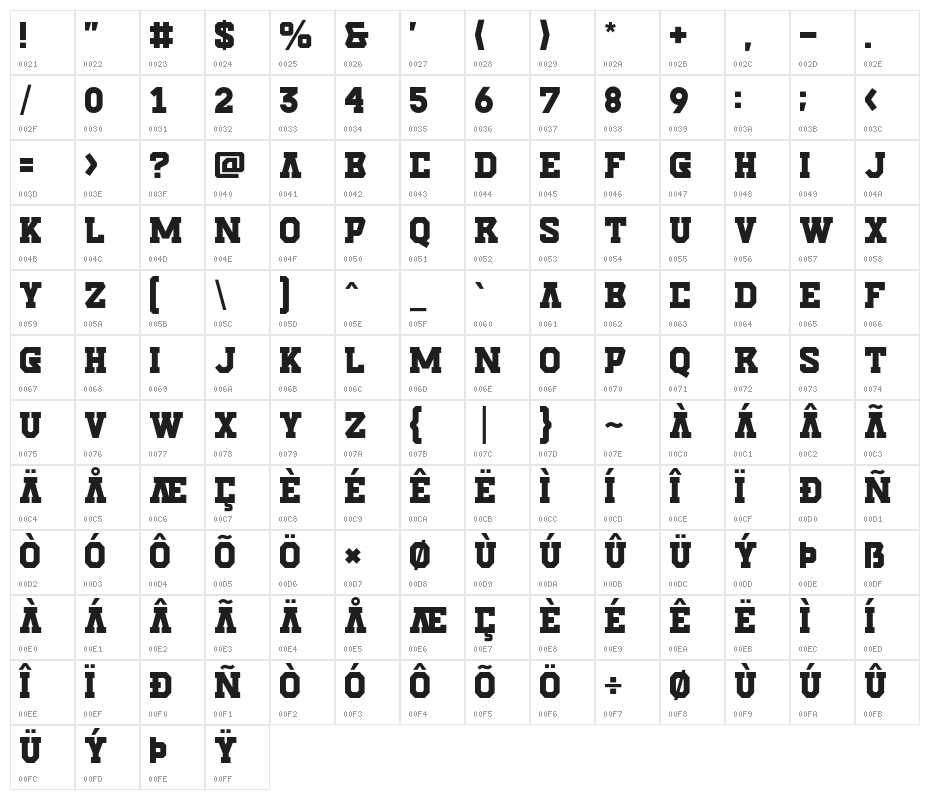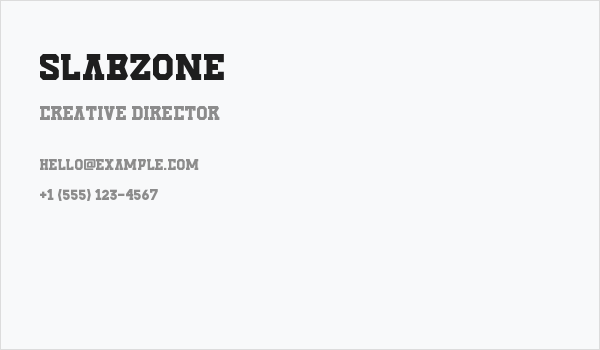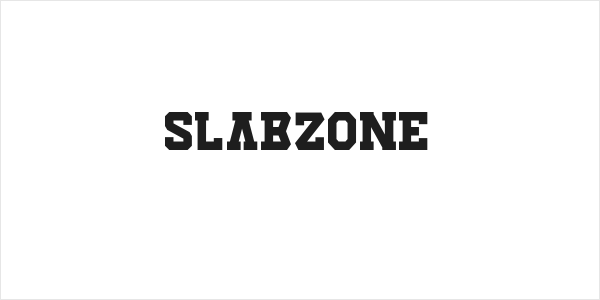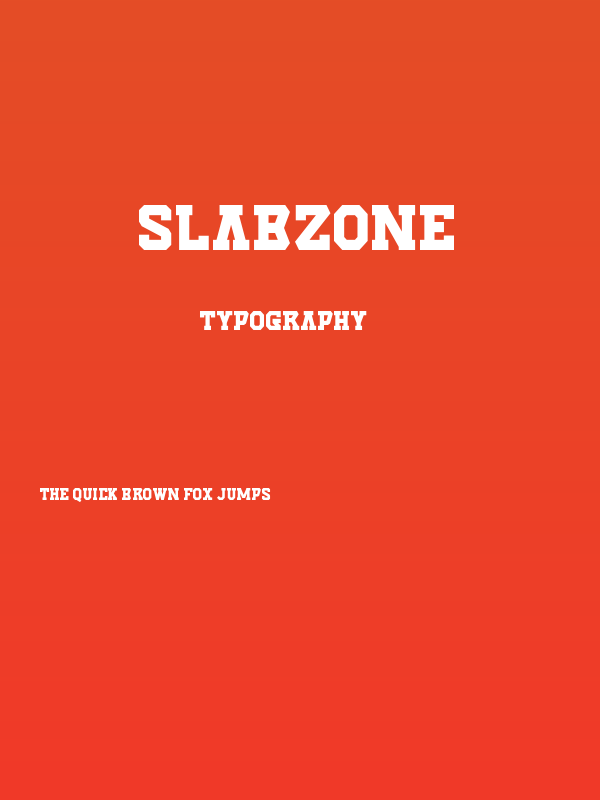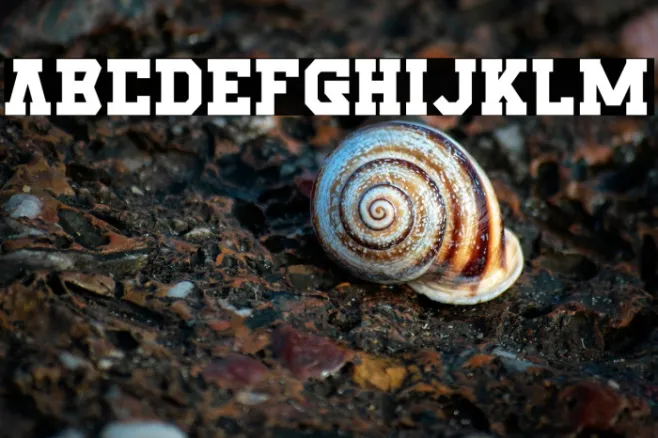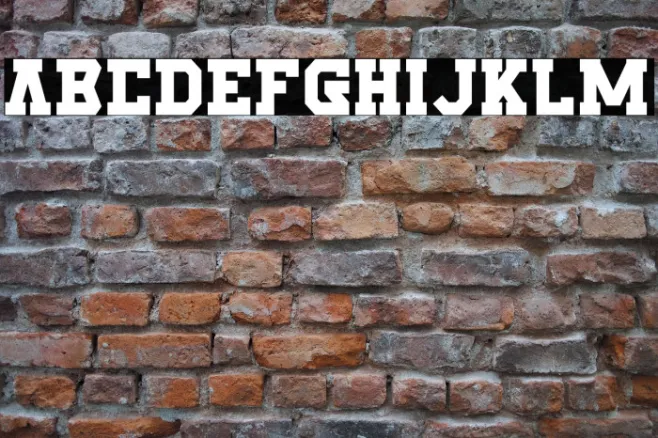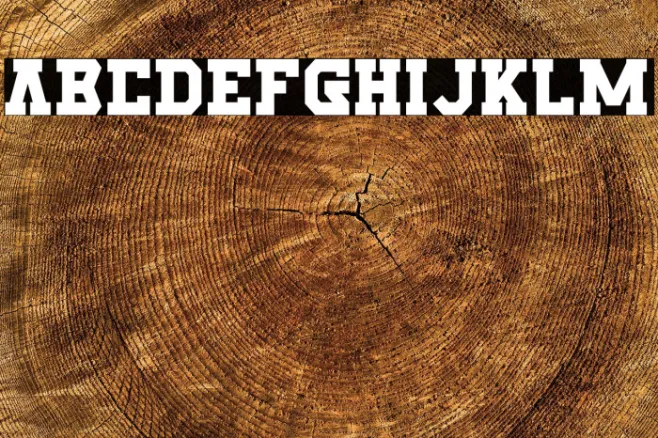
Slabzone Font
Slabzone Description
This font features bold, blocky letters with thick strokes and a strong presence, making it ideal for attention-grabbing designs. The characters have a geometric structure with consistent stroke widths, giving them a robust and sturdy appearance. The uppercase letters are particularly striking, with sharp angles and a uniform height, while the numerals are equally bold and clear. The special characters maintain the same boldness, ensuring consistency across all glyphs. This font's design is reminiscent of industrial or sports themes, making it suitable for impactful headlines and logos.
| Proposed Projects | Ideal for sports branding, industrial-themed posters, bold headlines, and logo design. |